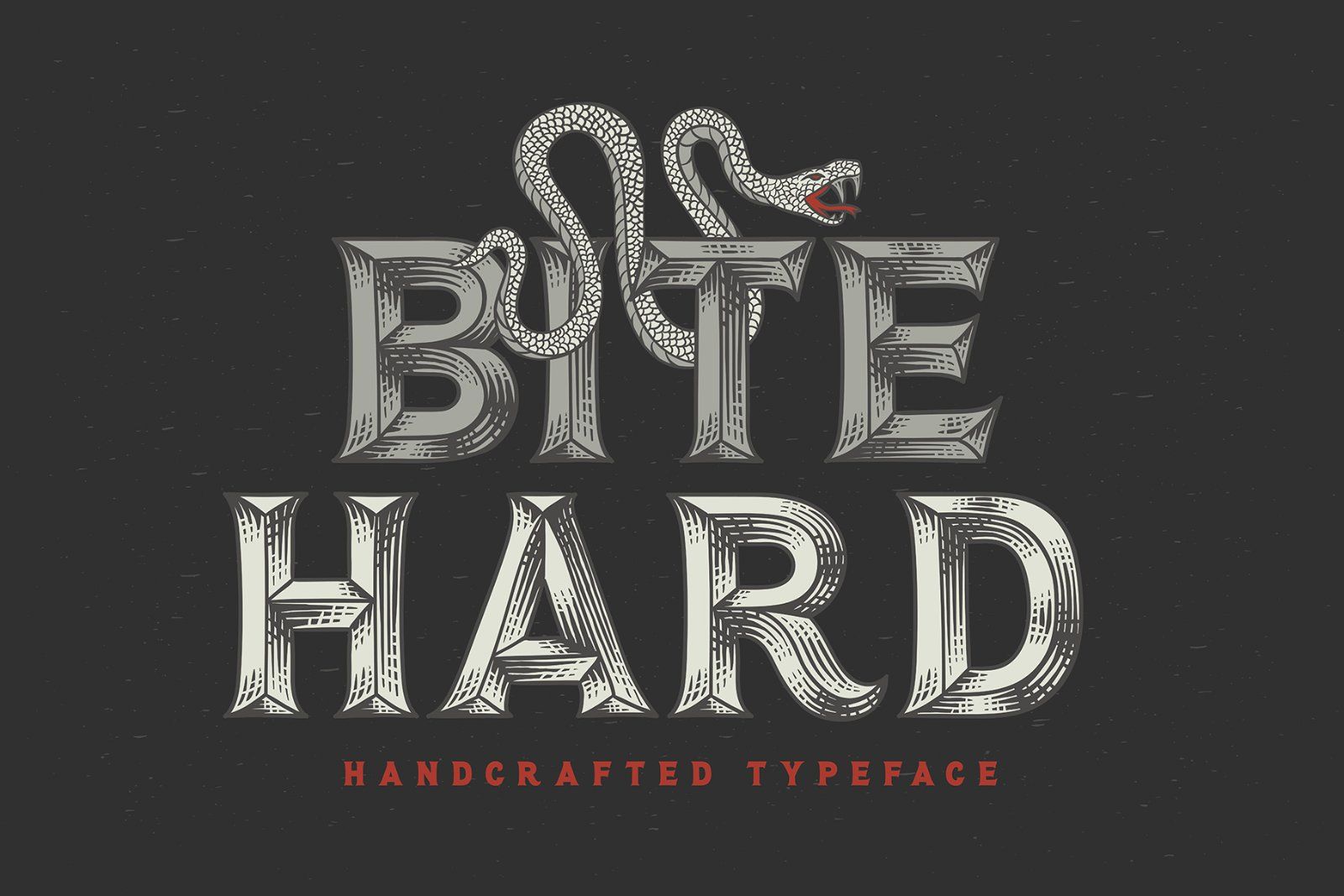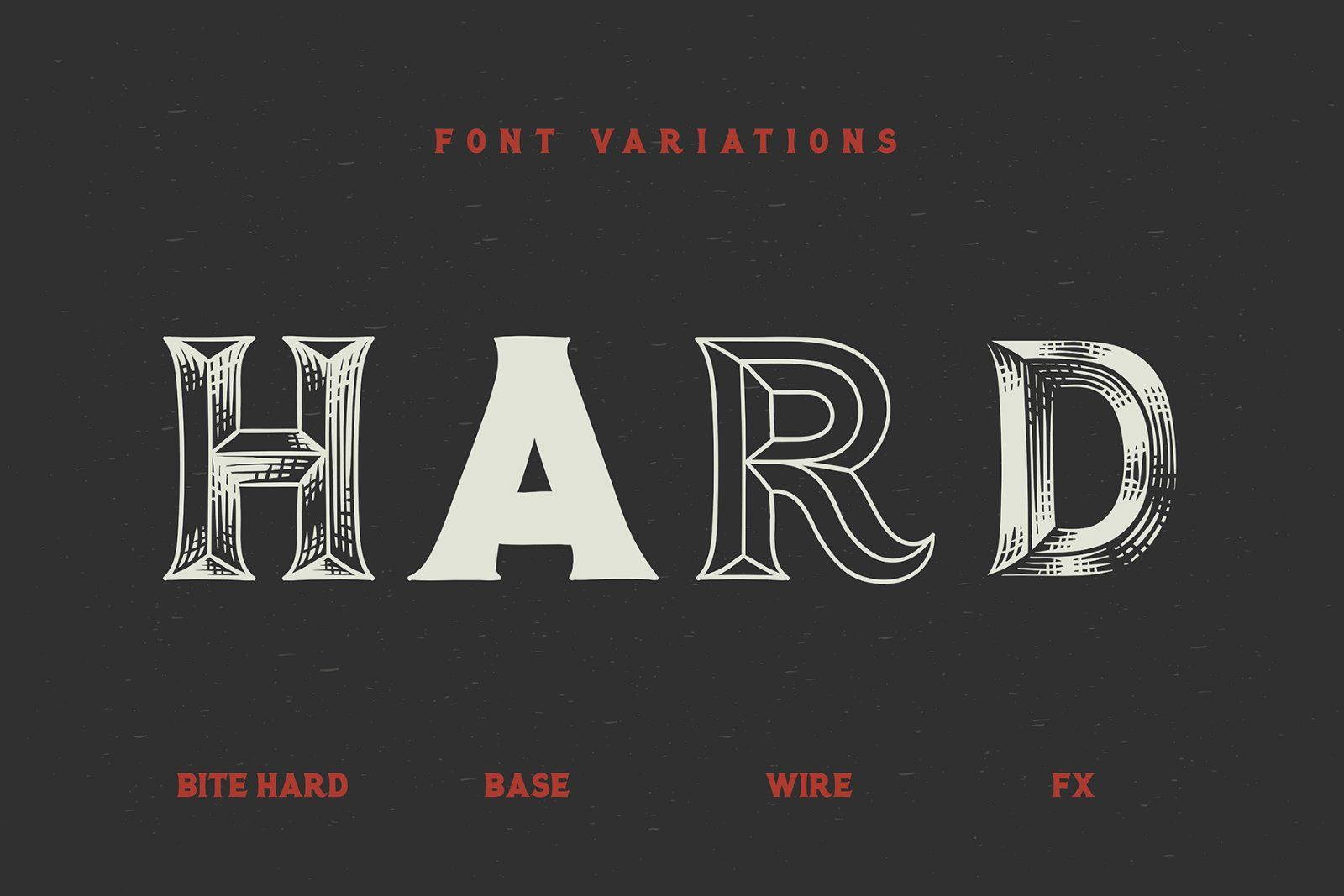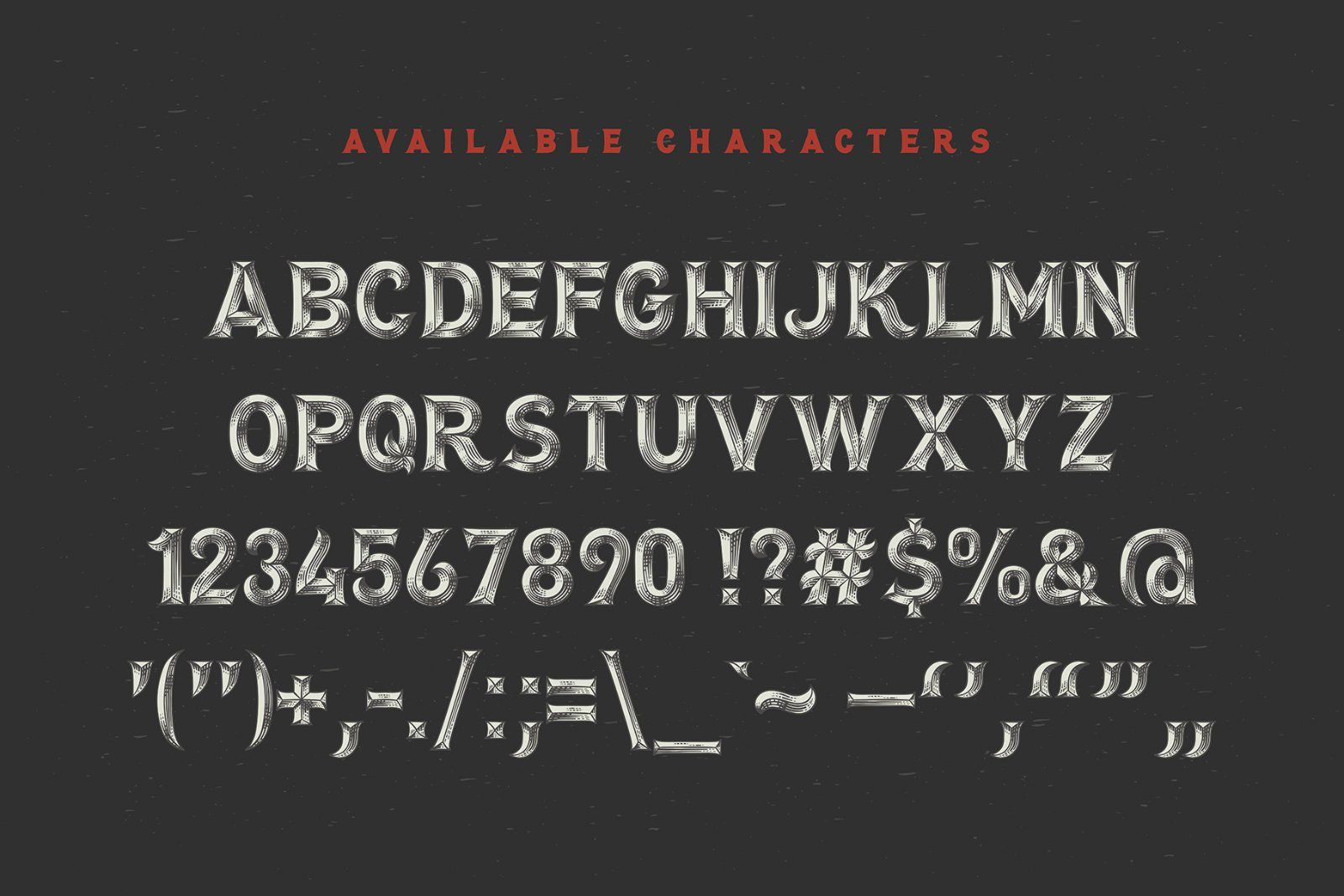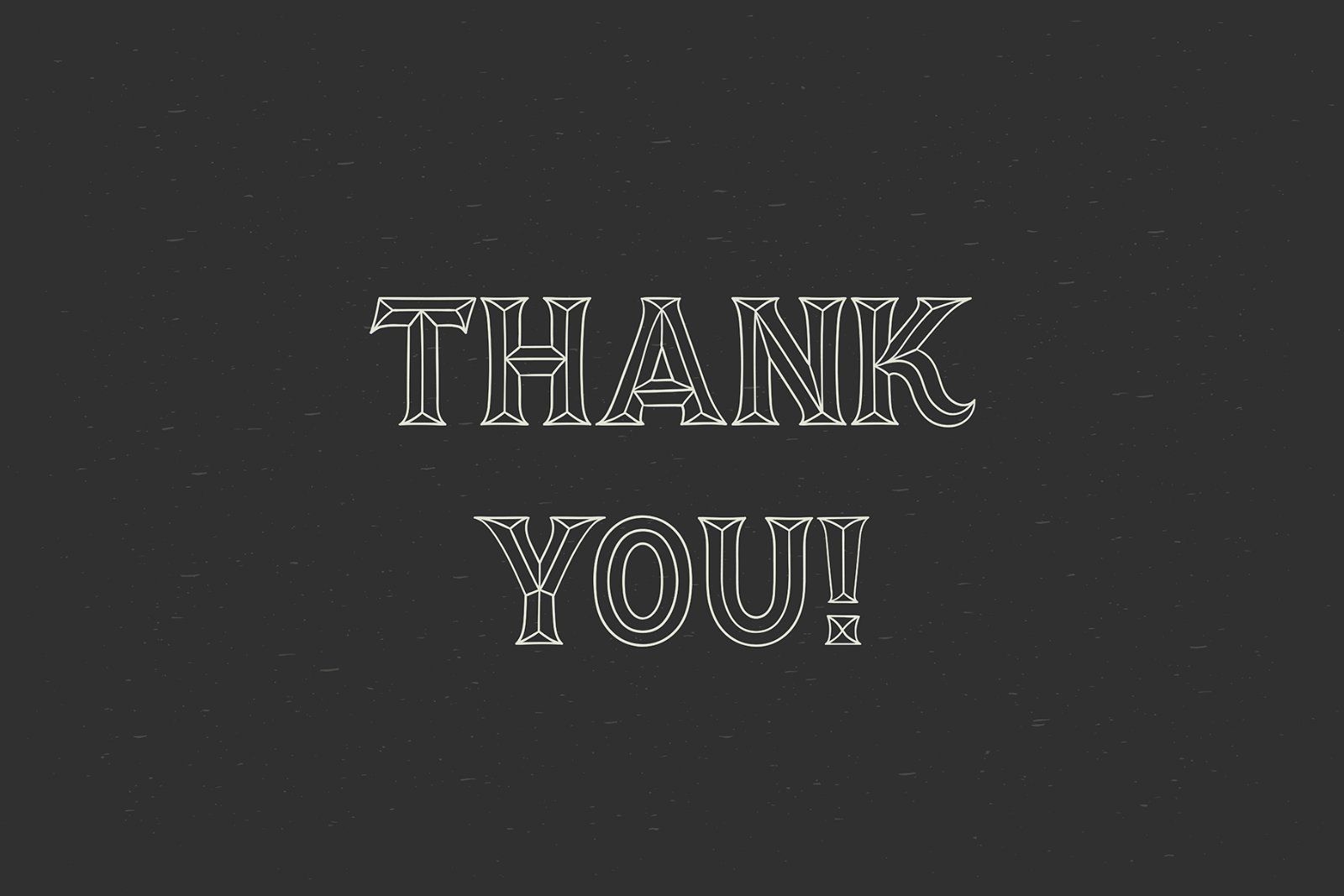
Hi! Introducing handcrafted high detailed font BITE HARD. It has four variations to help you easy recolor and combine lettering compositions. As a bonus a vector snake illustration is included. Thanks and have fun!
Note: This font contains only Latin letters, all available characters you can see on the third screenshot.